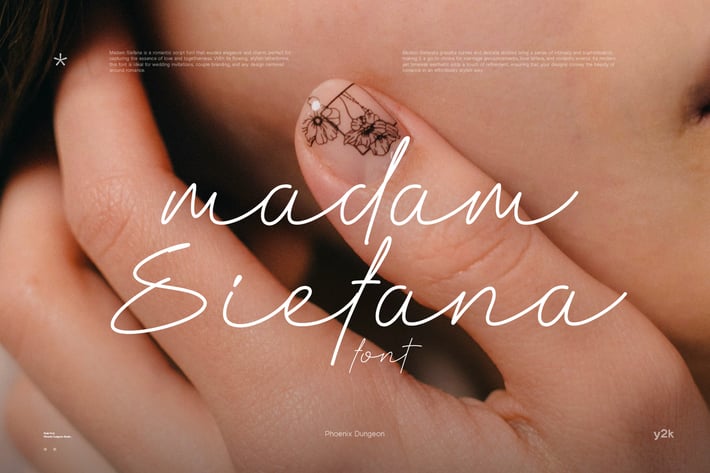
Madam Siefana Font
Madam Siefana is a romantic script font that exudes elegance and charm, perfect for capturing the essence of love and togetherness. With its flowing, stylish letterforms, this font is ideal for wedding invitations, couple branding, and any design centered around romance. Madam Siefana's graceful curves and delicate strokes bring a sense of intimacy and sophistication, making it a go-to choice for marriage announcements, love letters, and romantic events. Its modern yet timeless aesthetic adds a touch of refinement, ensuring that your designs convey the beauty of romance in an effortlessly stylish way.